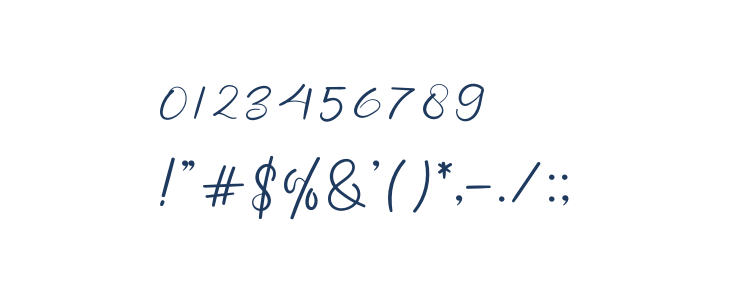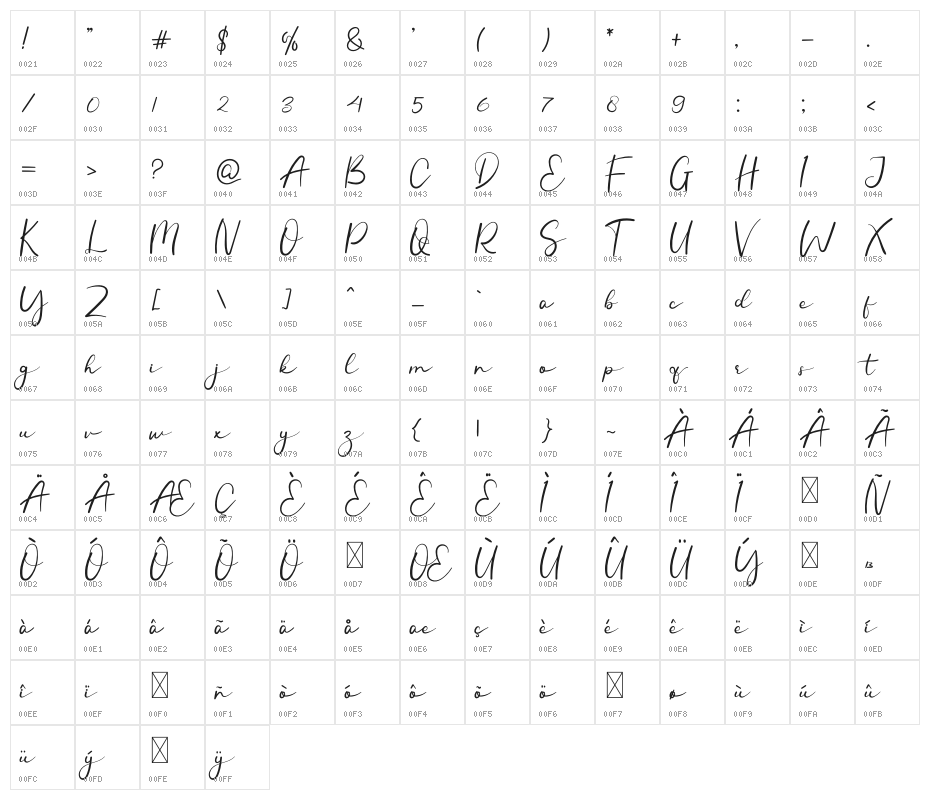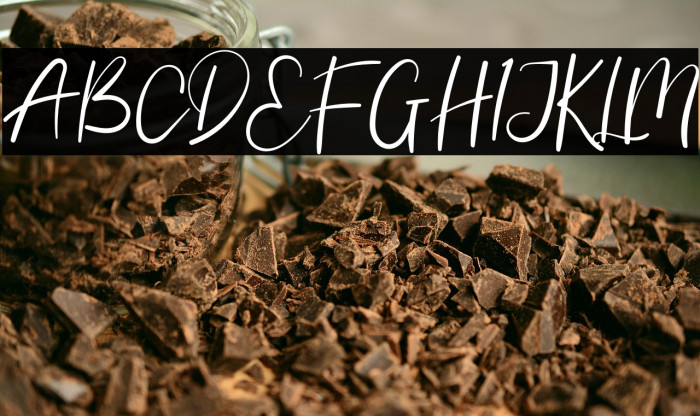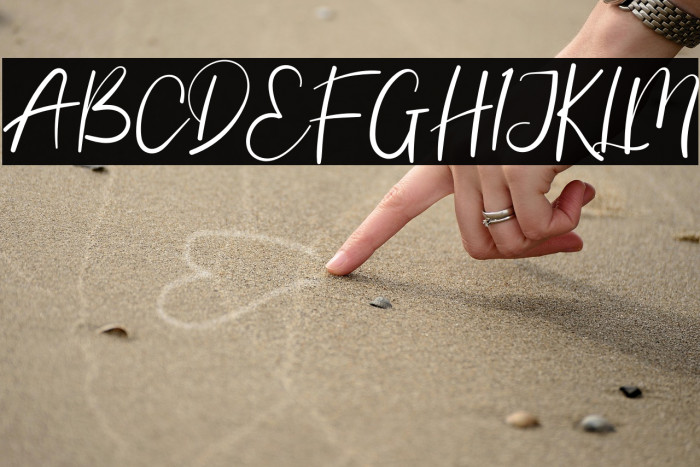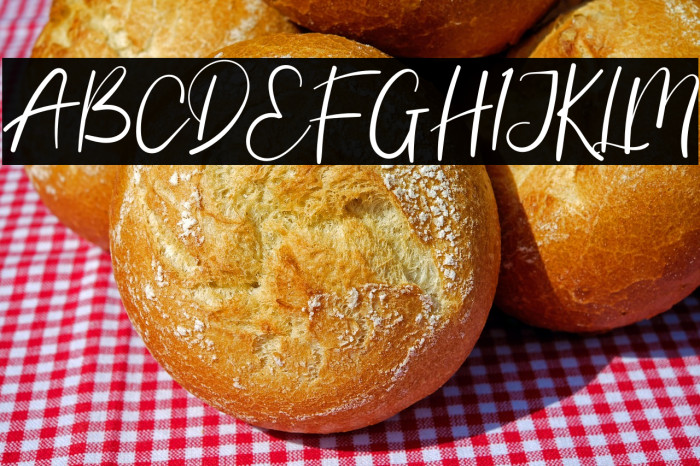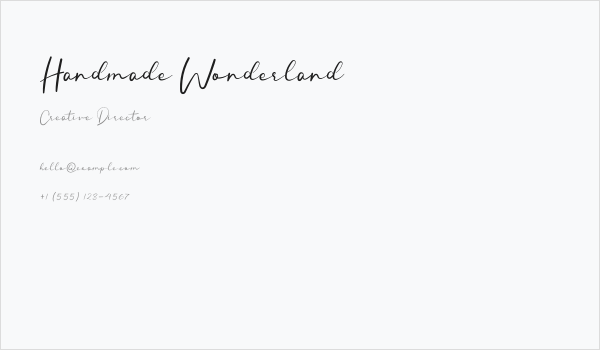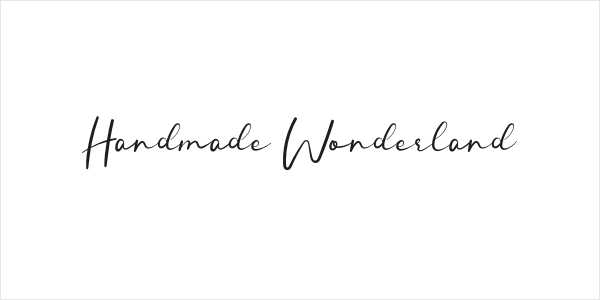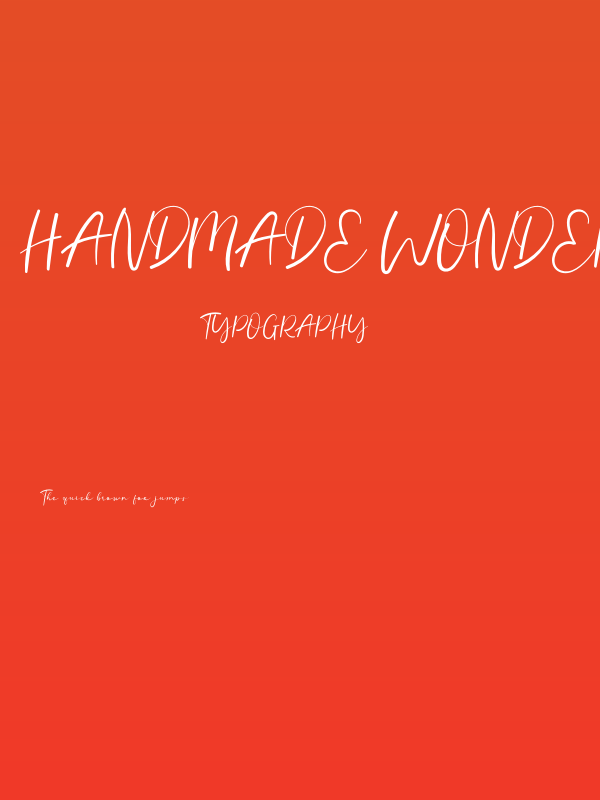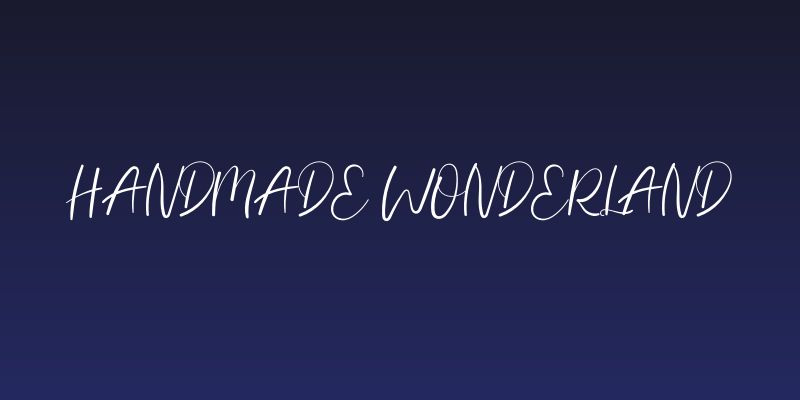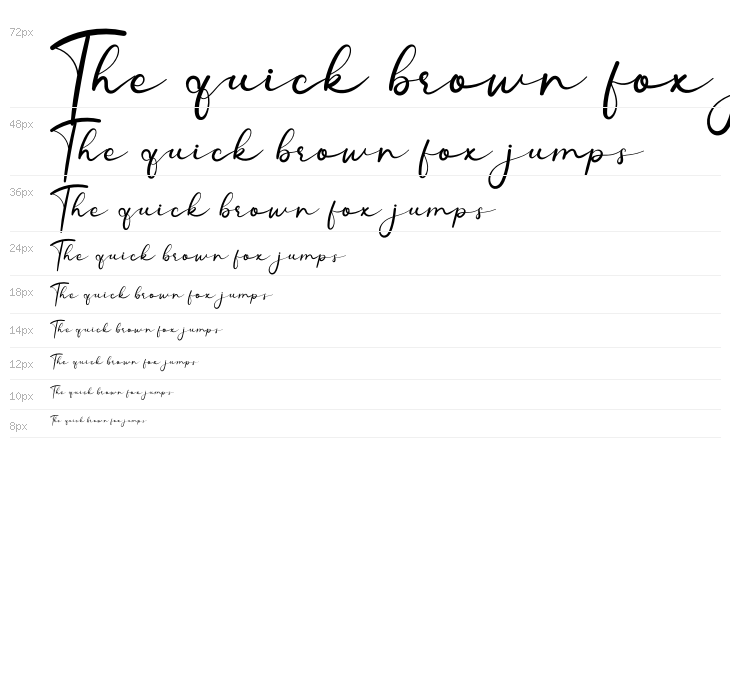
Handmade Wonderland Font
Handmade Wonderland Description
This font exudes a playful and whimsical charm with its handwritten style, characterized by fluid, flowing strokes that mimic natural handwriting. The letters are elegantly connected, giving a sense of continuity and movement. The uppercase letters are bold and expressive, while the lowercase letters maintain a delicate and graceful appearance. Numbers and special characters are crafted with the same attention to detail, ensuring consistency across the board. This font is perfect for projects that require a personal touch, such as invitations, greeting cards, or branding materials that aim to convey warmth and creativity.
| Overall Style | Whimsical |
| Proposed Projects | Ideal for invitations, greeting cards, personal branding, and creative projects. |